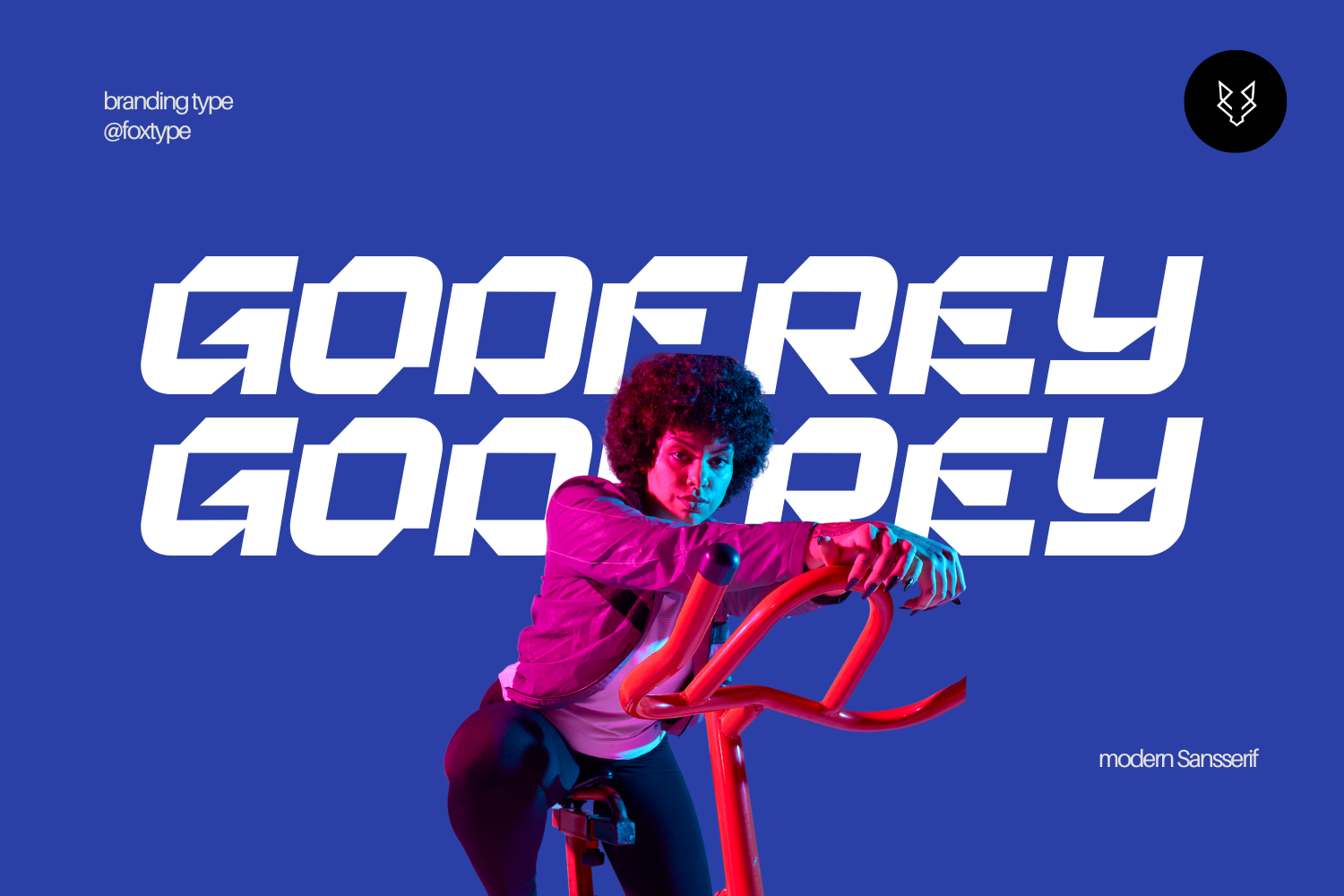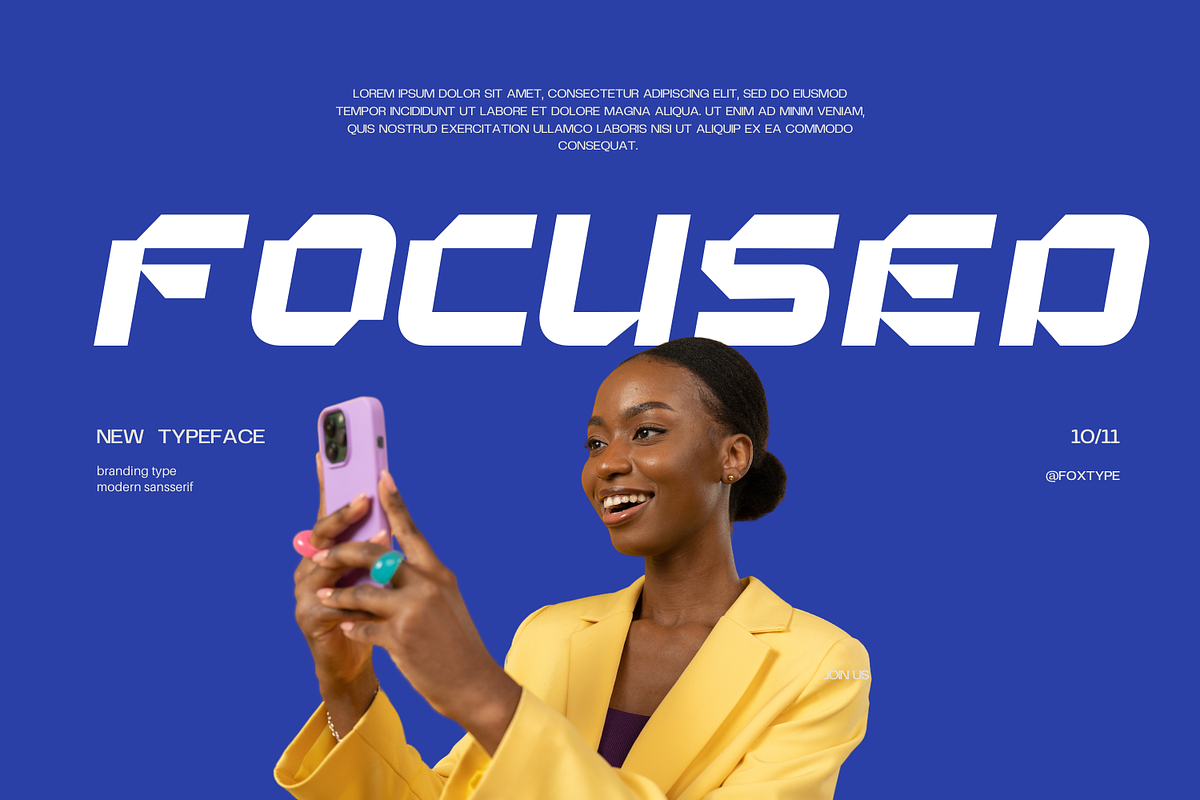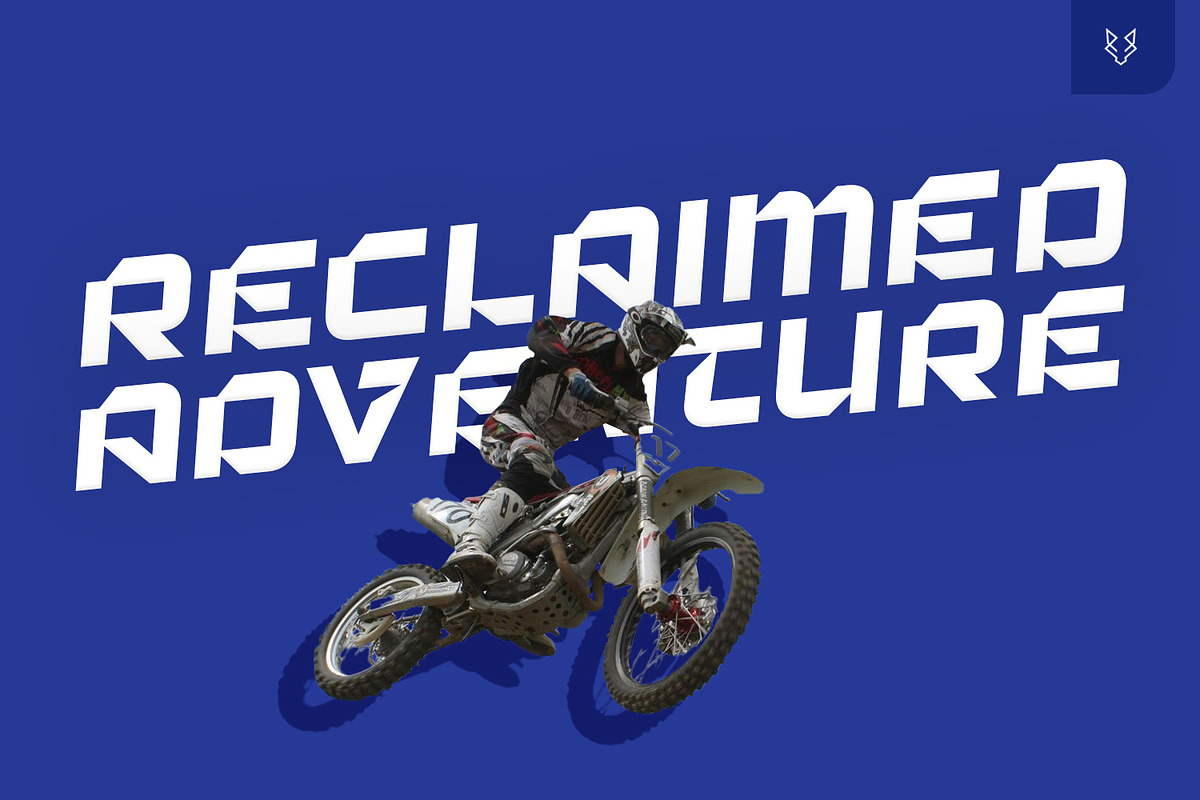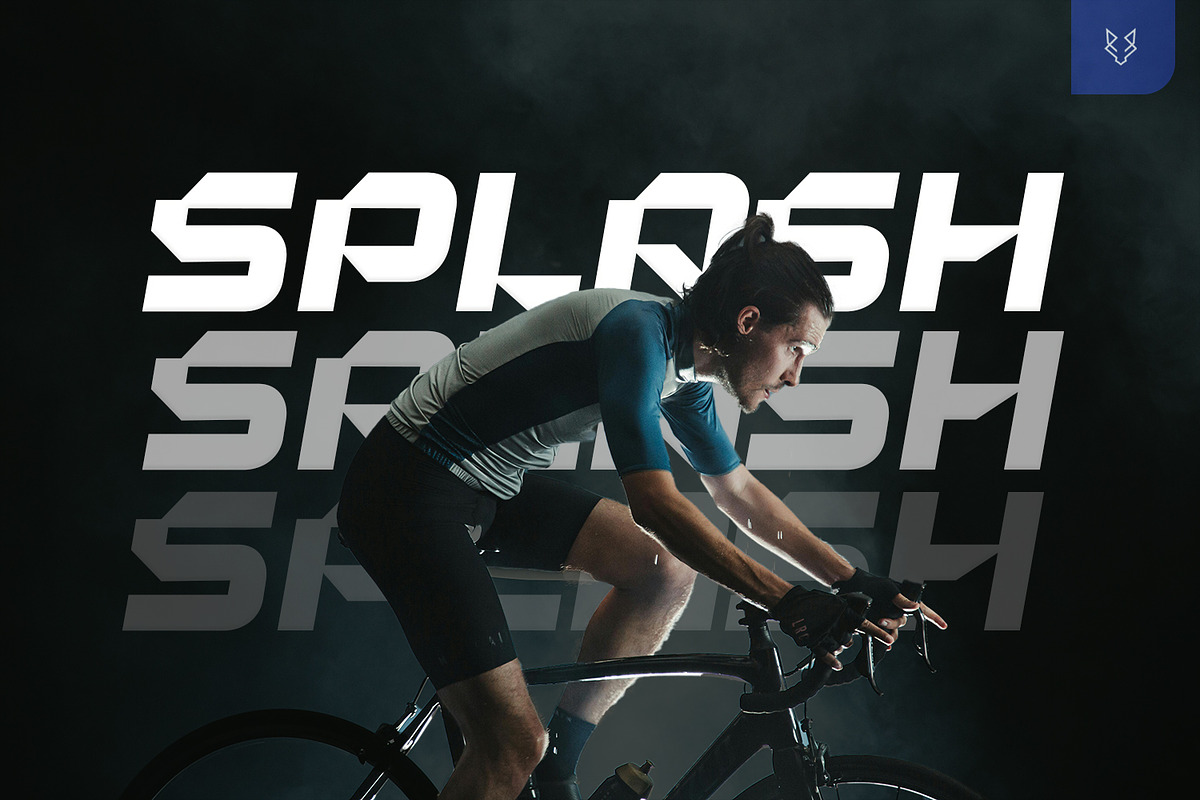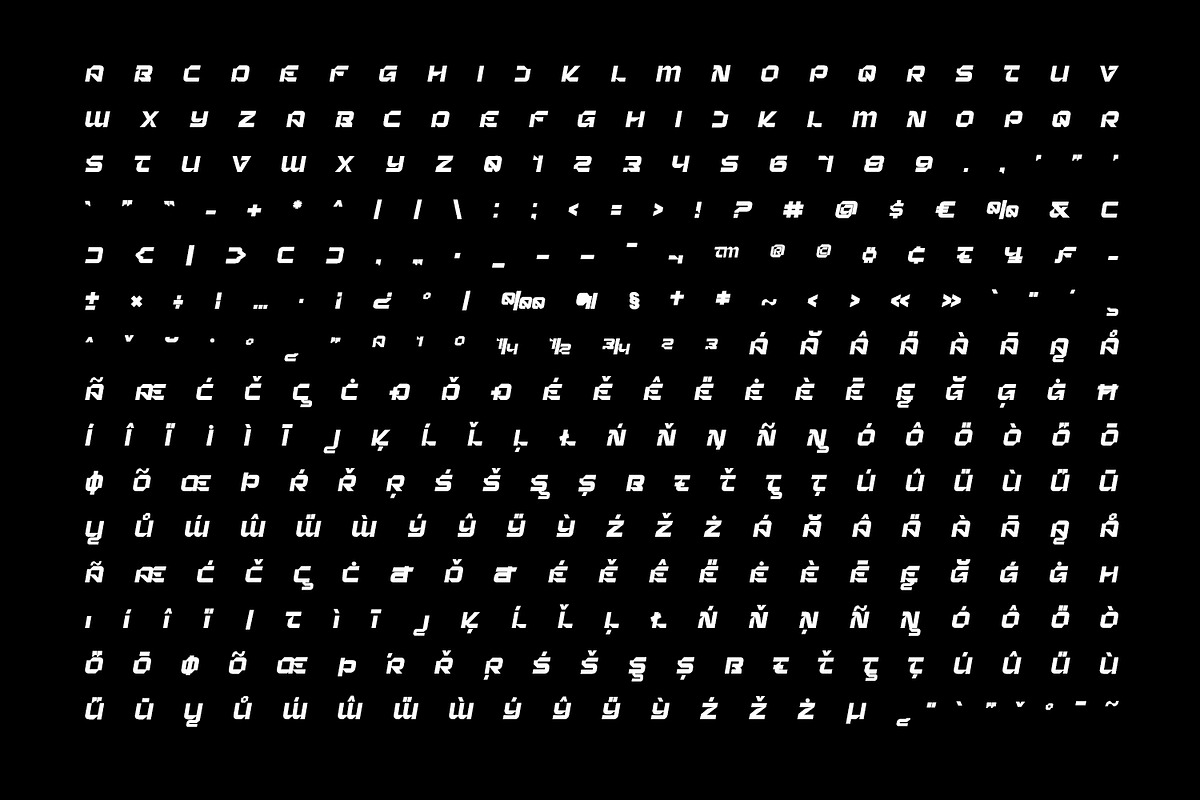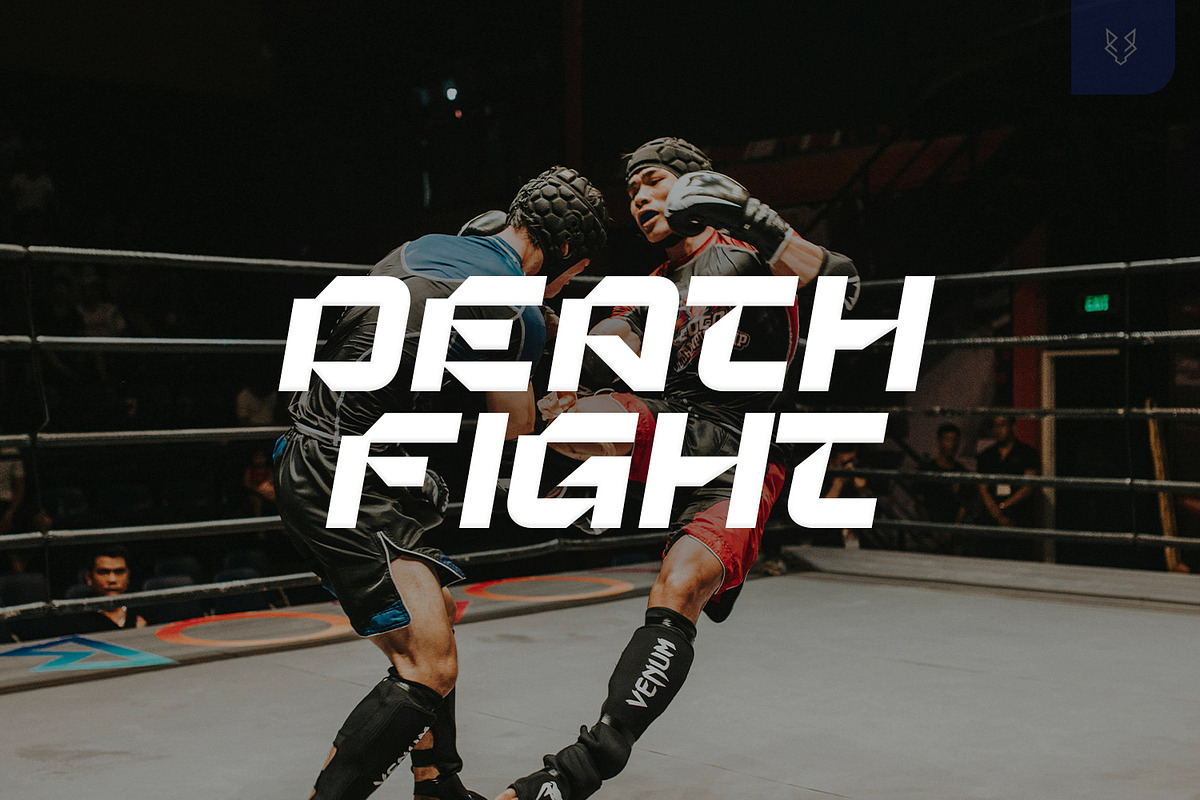
Godfrey Display Typeface
Introducing "Godfrey," a font meticulously crafted to redefine the essence of modernity in typography. Tailored specifically for Sports and Automobile Flyers, posters, and magazines, Espansa embodies a harmonious fusion of sleek aesthetics and timeless elegance.
With its clean lines and precise curves, Godfrey captivates the eye and commands attention, making it the perfect choice for brands aiming to convey sophistication and style. Each letter is meticulously designed to ensure optimal legibility while exuding an unmistakable sense of refinement.
Godfrey's versatility shines through in both digital and print media, effortlessly enhancing the visual impact of any project it graces. Whether adorning the pages of high-end fashion magazines or commanding attention on urban posters, this font stands as a testament to modern design at its finest.
Elevate your brand identity and captivate your audience with Godfrey – where every letter tells a story of beauty and grace, and where modernity meets timeless allure.
Font Contains Uppercase Only.